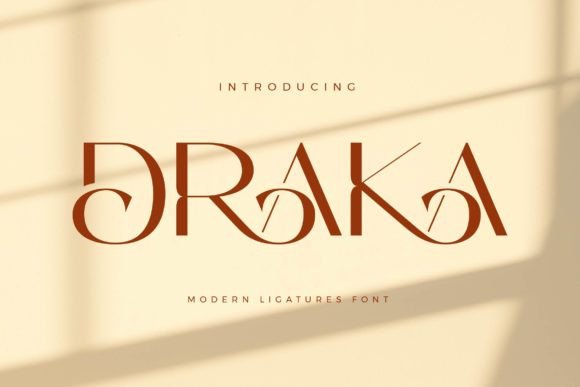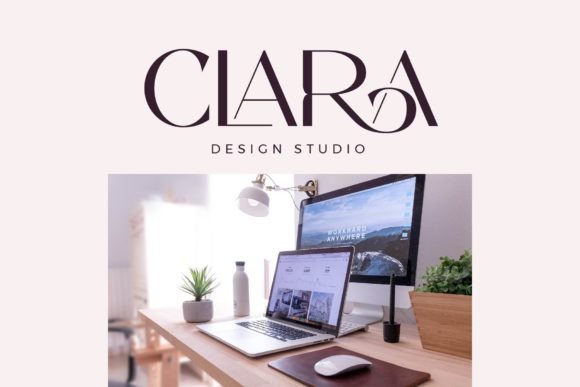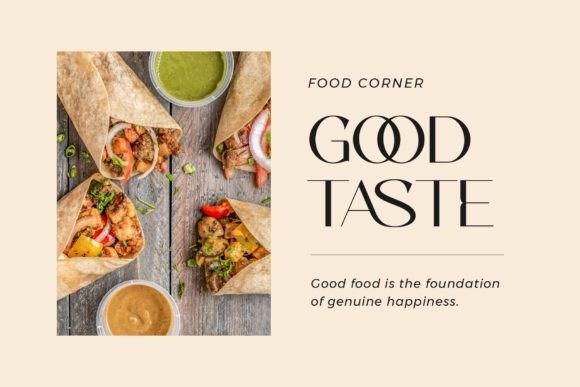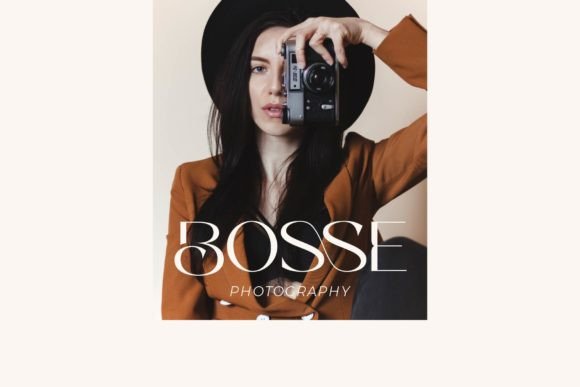
Draka Font
About the Draka Font
Elevate your designs with Draka Font, a font that combines sophistication with readability. Draka Sans Font Typeface inspired by the famous minimalist logo is perfect for the purposes of designing templates, brochures, videos, advertising branding, logos, invitation, layout design, elegant crafting, beauty design, and others.
Draka Sans’s clean lines and minimalist aesthetic make it ideal for headlines, logos, and short, impactful text within branding materials and posters. Its geometric precision lends itself well to modern and sophisticated designs. However, its lack of x-height and relatively thin strokes make it unsuitable for extended body copy or UI elements where readability is paramount.
For a balanced pairing, consider using a warm serif like Garamond or a neutral sans-serif like Lato for body text. These fonts offer excellent readability and contrast nicely with Draka Sans’ sharp geometric forms. Pairing Draka Sans with a playful script font, such as Pacifico, would create an interesting contrast for projects requiring both elegance and a touch of informality.
The overall personality of Draka Sans is sophisticated and modern, conveying a sense of sleekness and precision. It is best suited to brands and projects that prioritize a clean, minimalist aesthetic and value understated elegance.
Draka Font Usage Examples
Draka Font Example